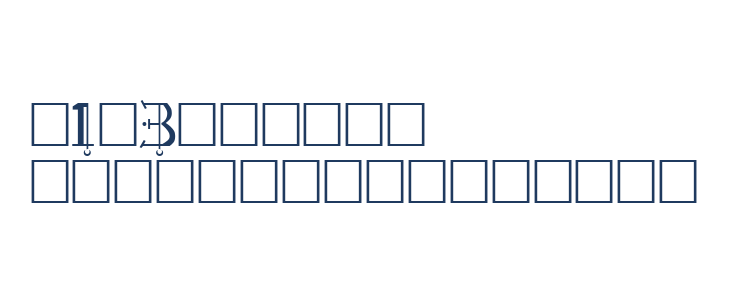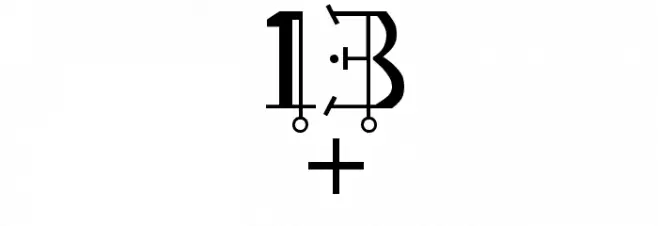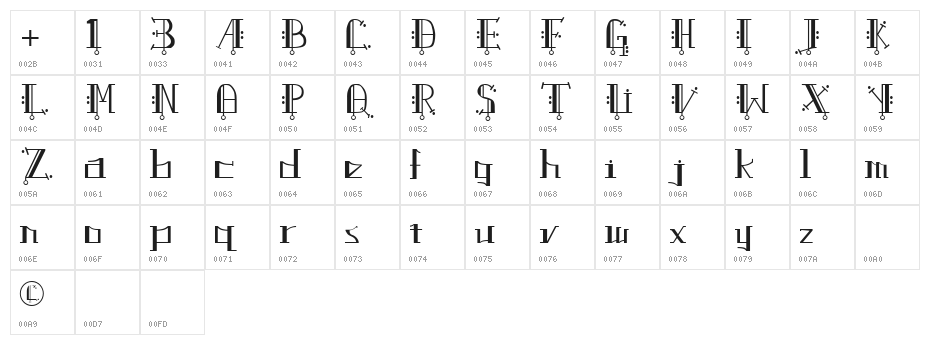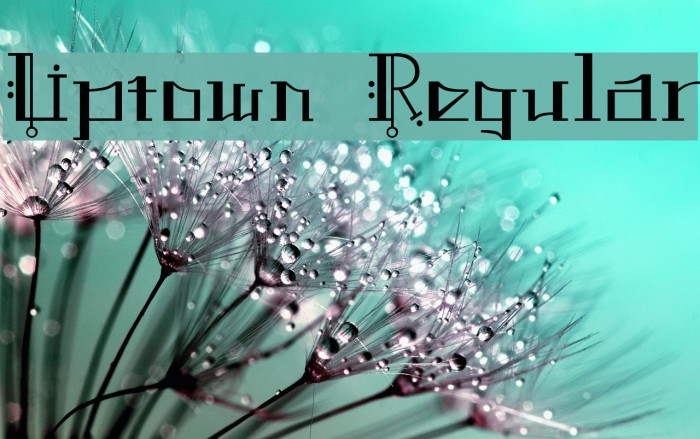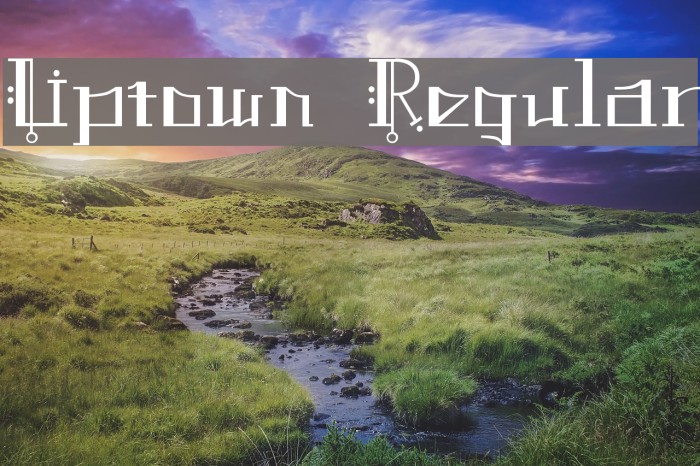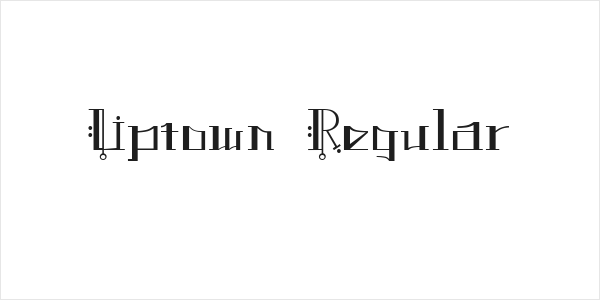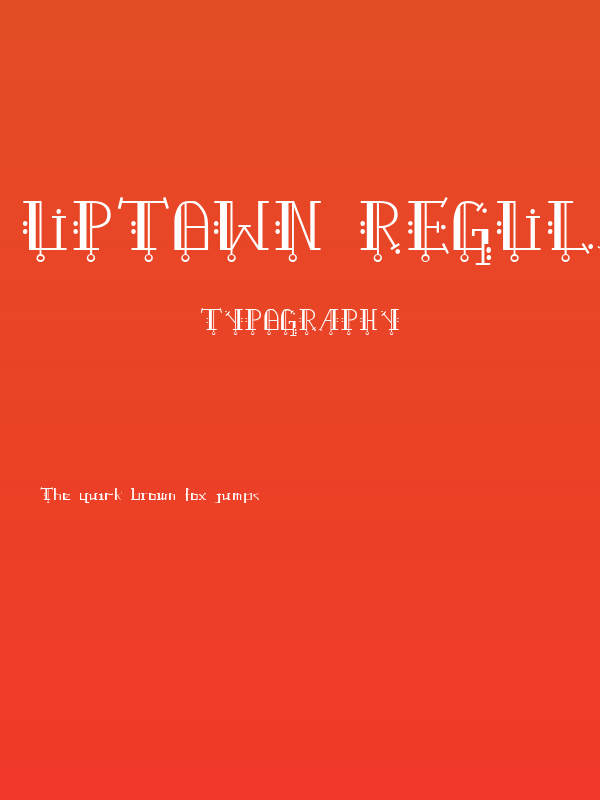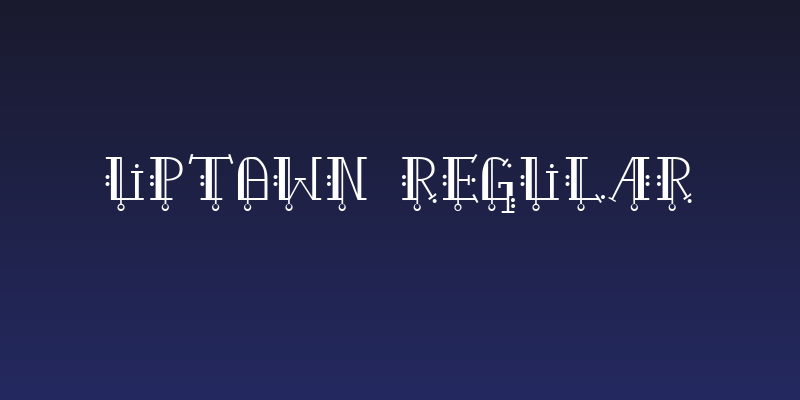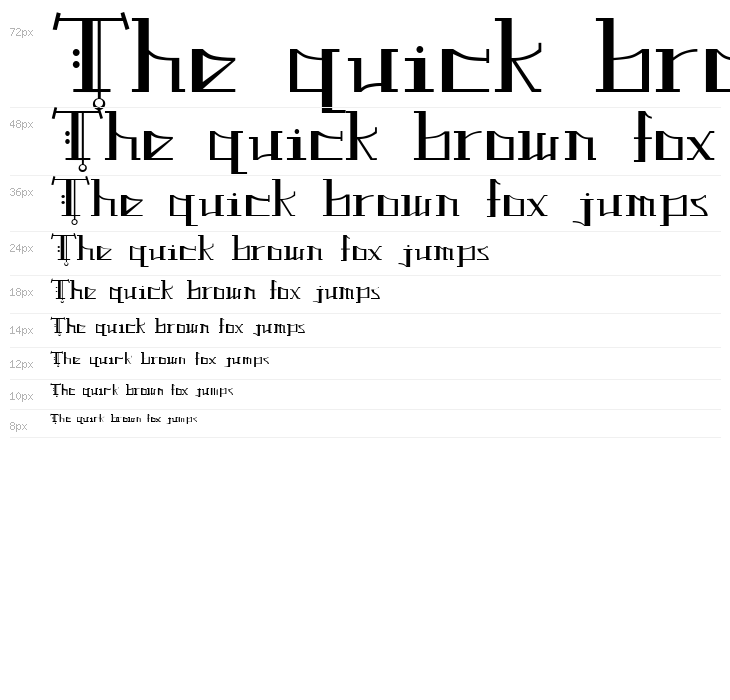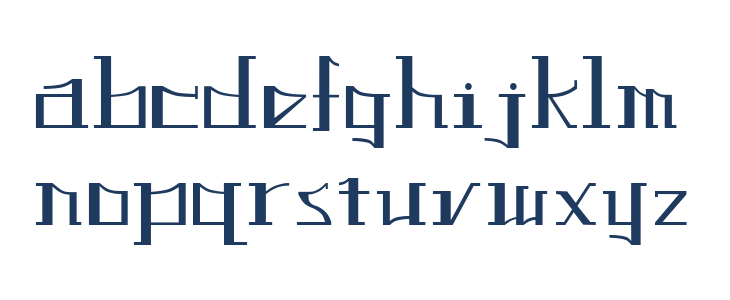
Uptown Regular Font
Uptown Regular Description
This font features a unique blend of modern and vintage styles, characterized by its geometric and ornamental elements. The uppercase letters are adorned with intricate dot and line embellishments, giving them a decorative and almost architectural appearance. The lowercase letters maintain a more straightforward, yet still stylized, form with sharp angles and clean lines. The numerals and special characters continue this theme, offering a cohesive look across all glyphs. The overall design is striking and bold, making it suitable for projects that require a distinctive and eye-catching typeface.
| Overall Style | Modern, Vintage |
| Proposed Projects | Ideal for branding, poster design, album covers, and any project needing a bold, decorative typeface. |